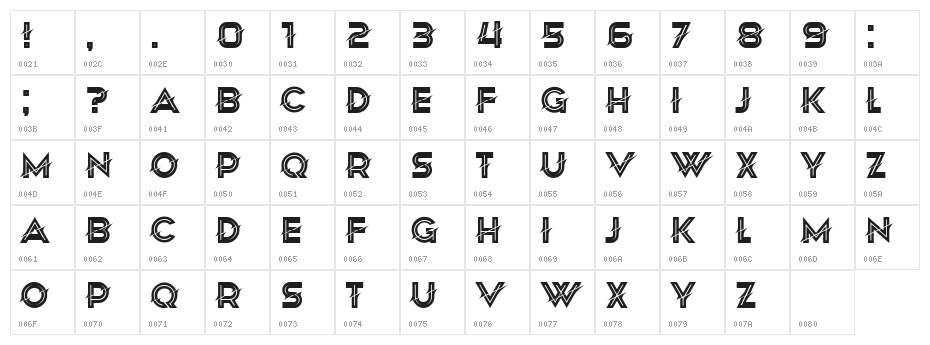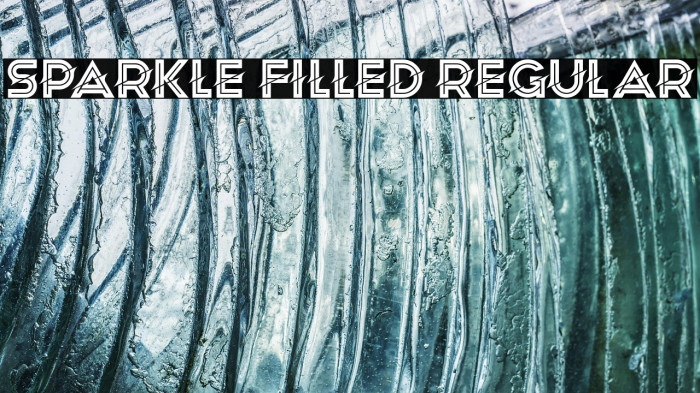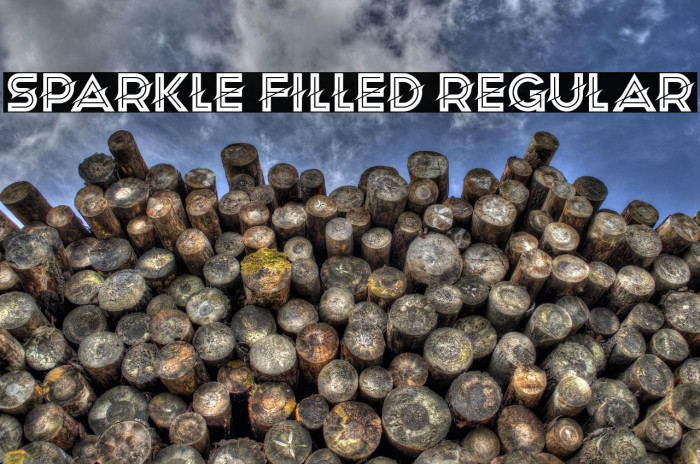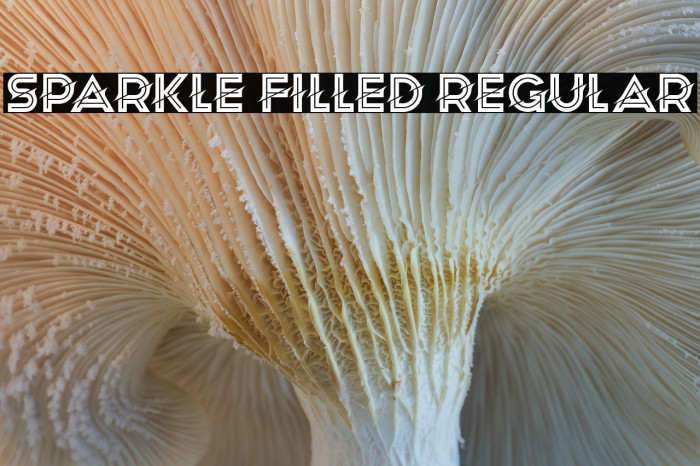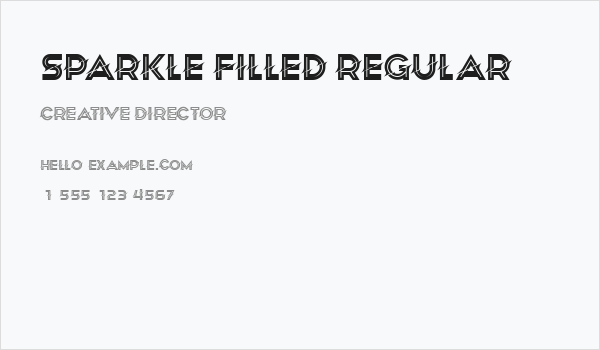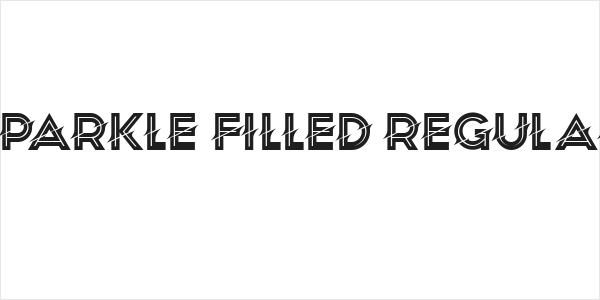
Sparkle Filled Regular Font
Sparkle Filled Regular Description
This font features a bold and dynamic design with a modern, geometric style. Each character is outlined with a double line effect, creating a sense of depth and dimension. The letters are angular and sharp, with a futuristic aesthetic that is both eye-catching and unique. The font includes both uppercase and lowercase letters, as well as numbers and a selection of special characters. The overall look is striking and ideal for projects that require a contemporary and innovative feel.
| Proposed Projects | Ideal for branding, posters, and digital media that require a modern and dynamic look. |